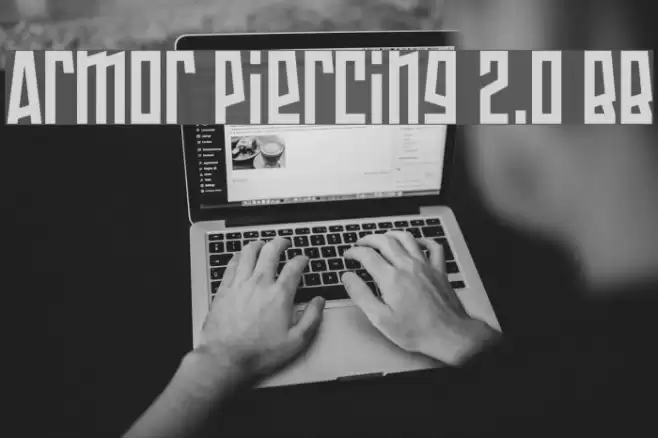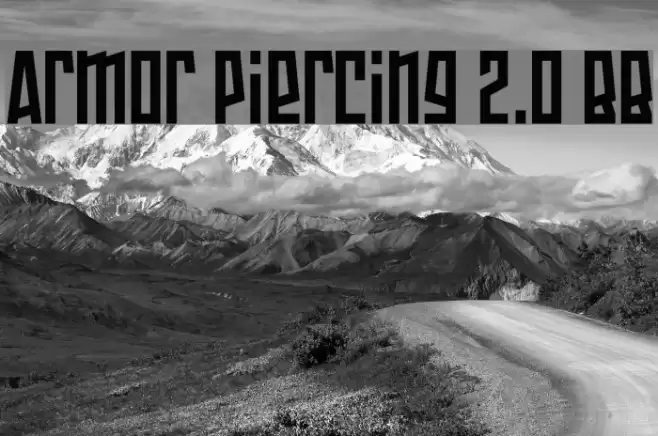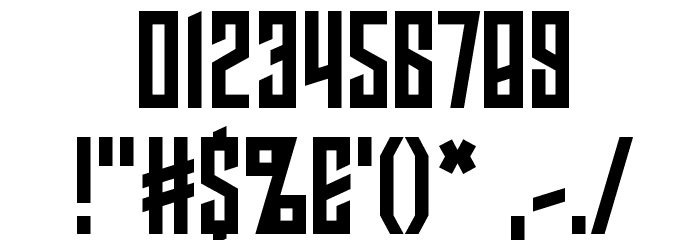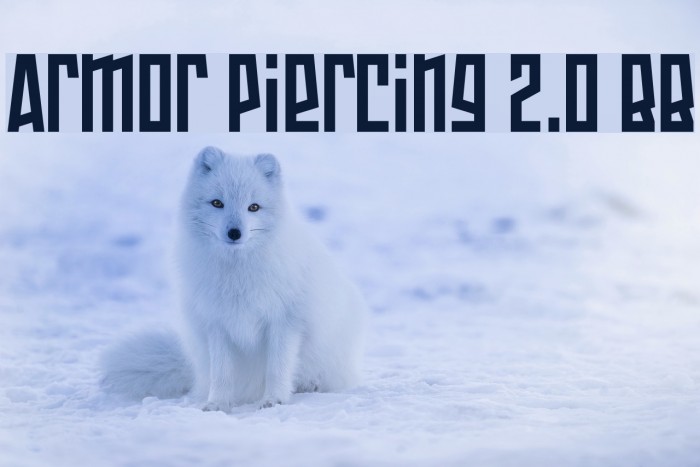
Armor Piercing 2.0 BB Font
Armor Piercing 2.0 BB Description
This font features a bold, angular design with a strong geometric influence. The characters are sharply defined with a consistent stroke width, giving it a robust and impactful appearance. The uppercase and lowercase letters maintain a uniform height, contributing to a cohesive look. The numbers and special characters follow the same angular style, ensuring visual harmony across all elements. This font's unique style makes it suitable for projects that require a modern and edgy aesthetic.
A bold, angular font with a geometric and modern design from Comic fonts.
- Proposed Projects: Ideal for branding, posters, video game titles, and any project needing a strong, modern aesthetic.